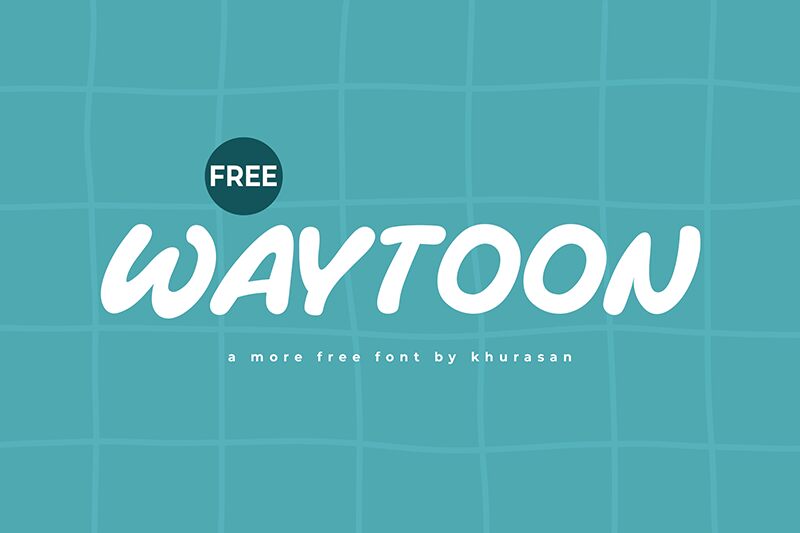
Waytoon
Waytoon font by Khurasan is a free comic display font with thick bold letters beautifully executed in a modern style. Even though all of its letters are in uppercase, the font doesn’t feel disturbing or busy. On the contrary, it has a harmonious and uniform appearance making it readable and suitable for many designs.
Use it in headlines, posters, magazine covers, packaging designs, social media posts and banners, commercials, brand logos and names, or merchandise design. Add to these many electronic design possibilities including website pages and mobile applications interfaces.